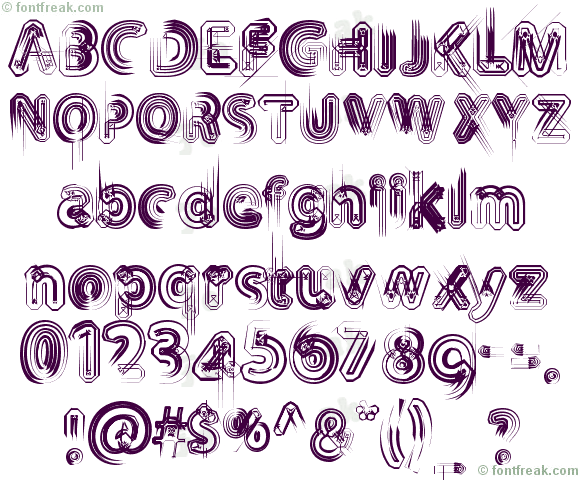
TH3 MACHINE
TH3 MACHINE by Sharkshock is a striking display font that stands out for its unique character and bold presence. This font features a decorative style characterized by intricate details and varying stroke weights. The letters possess a dynamic flow, with some exhibiting a layered effect that creates a sense of movement and energy. The spacing is thoughtfully designed to maintain readability while allowing the artistic elements of each character to shine.
This font is perfect for a variety of creative projects. Its eye-catching design makes it an excellent choice for movie posters, where it can grab attention and convey a sense of excitement. Additionally, TH3 MACHINE works well for branding efforts, especially for tech startups and modern businesses looking to make a statement. It can also be effectively utilized in promotional materials, such as flyers and social media graphics, to captivate an audience. Small business owners and graphic designers will find it particularly versatile, as it lends itself well to both print and digital applications.
What sets the TH3 MACHINE font apart is its ability to combine artistic flair with functional design. Its unique styling not only captures attention but also provides an engaging visual experience. Whether you’re designing for print or digital media, the TH3 MACHINE font free download offers versatility and creativity, ensuring your projects stand out in a crowded marketplace.